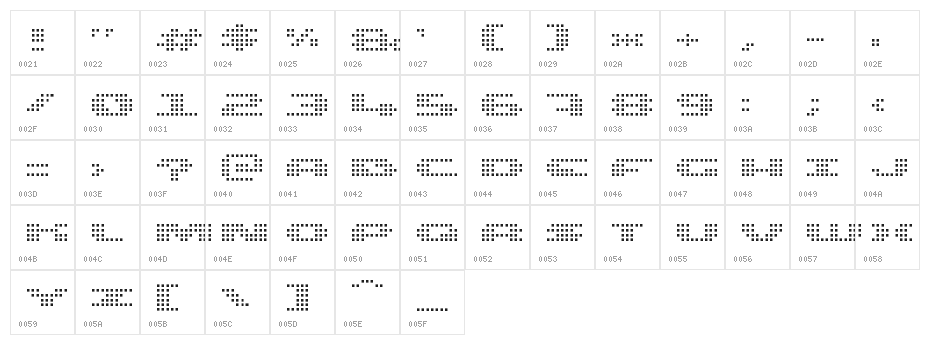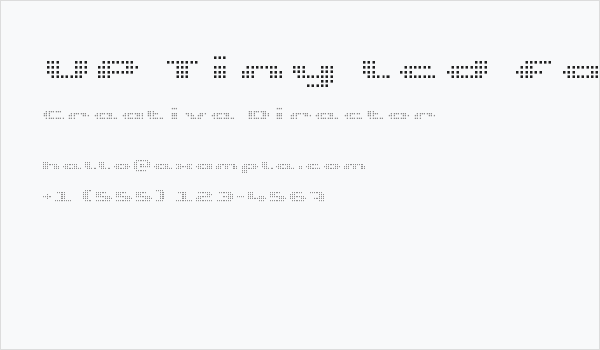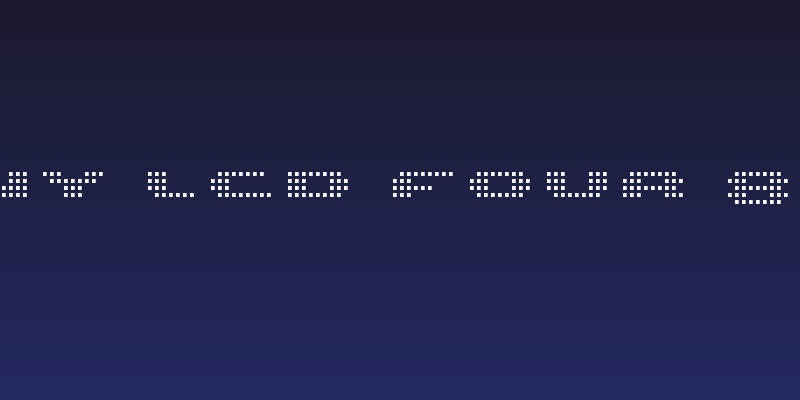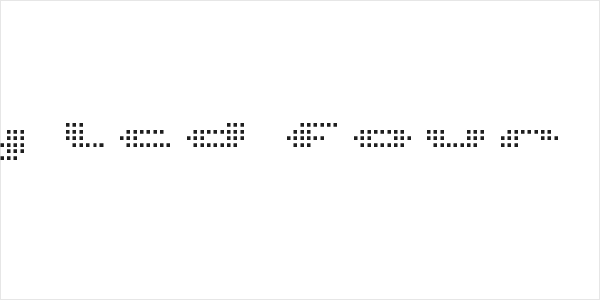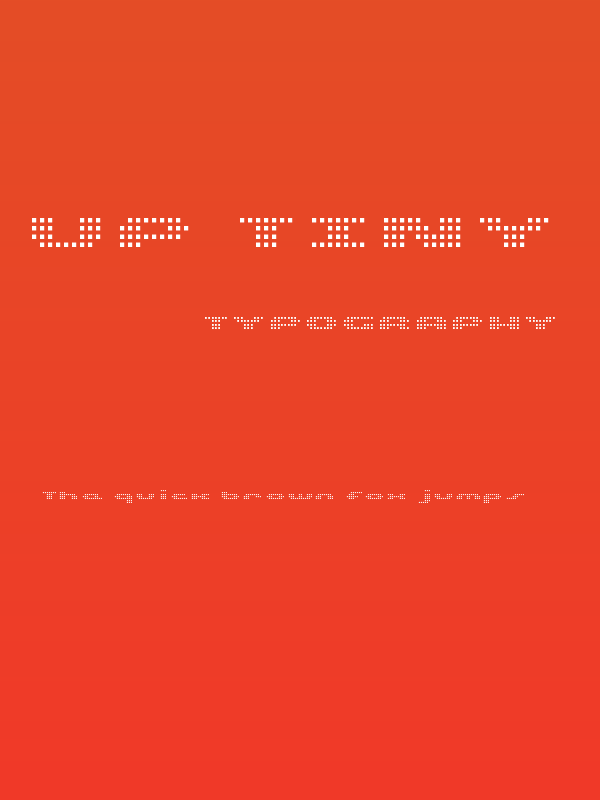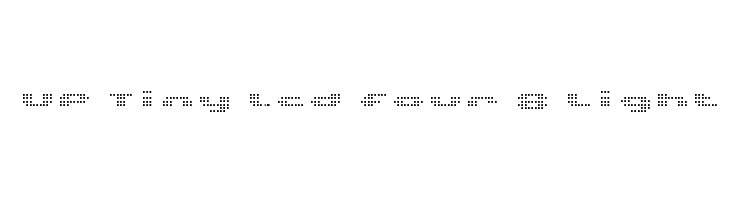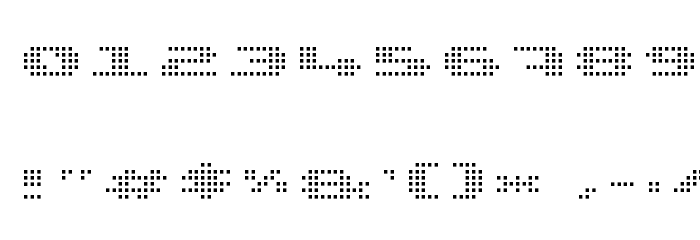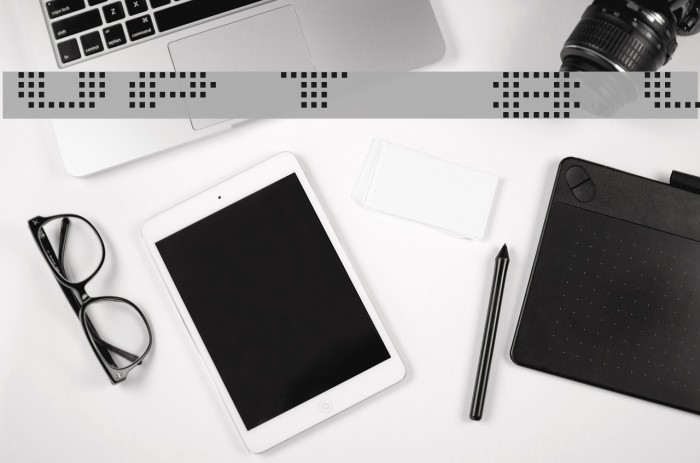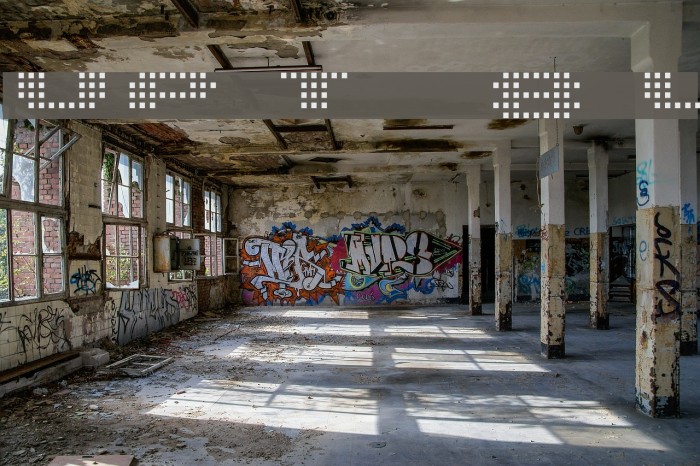
UP Tiny lcd four 8 Light Font
UP Tiny lcd four 8 Light Description
This font features a distinctive dot matrix style, reminiscent of early digital displays and retro technology. Each character is constructed from a grid of small, evenly spaced dots, creating a pixelated effect that is both nostalgic and modern. The uppercase and lowercase letters, as well as numbers and special characters, maintain a consistent design, ensuring readability while conveying a sense of technological sophistication. The uniformity in dot size and spacing gives the font a clean and organized appearance, making it suitable for projects that require a digital or futuristic aesthetic.
| Proposed Projects | Ideal for digital-themed designs, tech-related branding, retro gaming interfaces, and futuristic displays. |